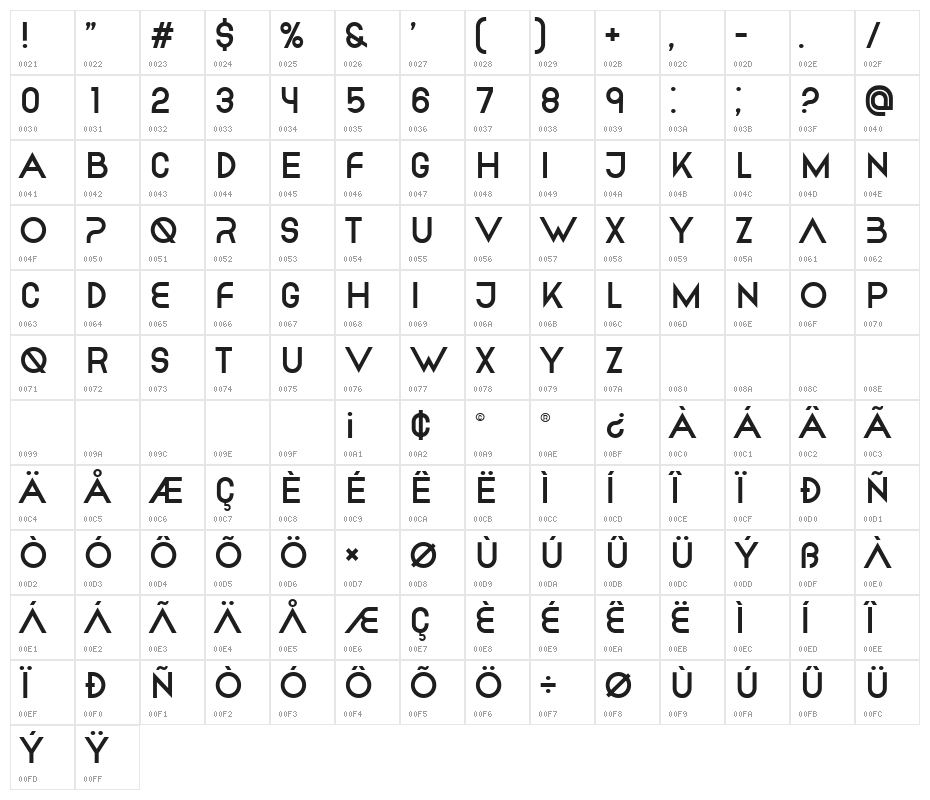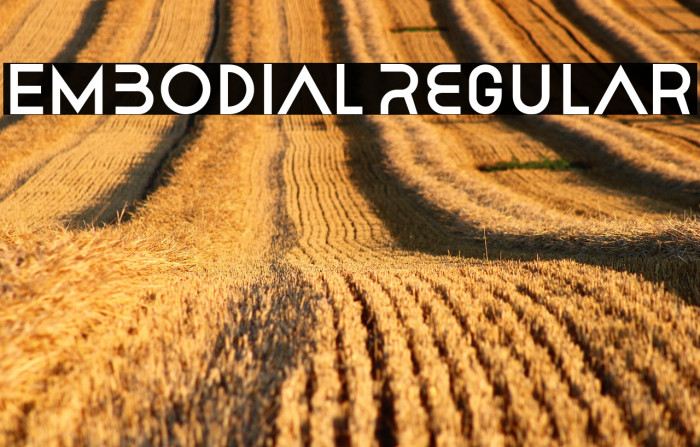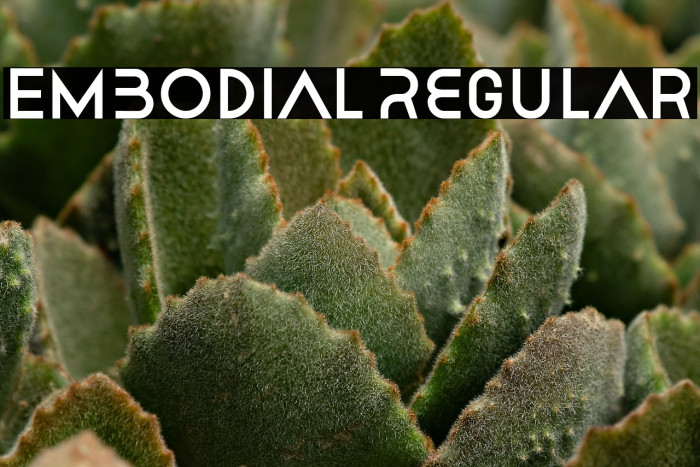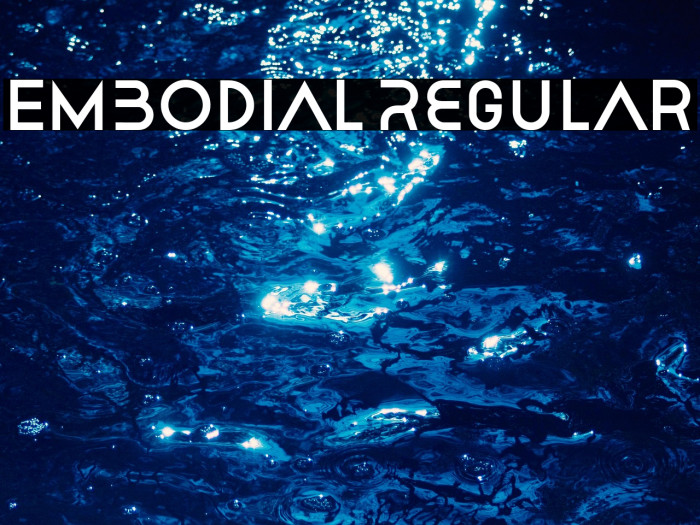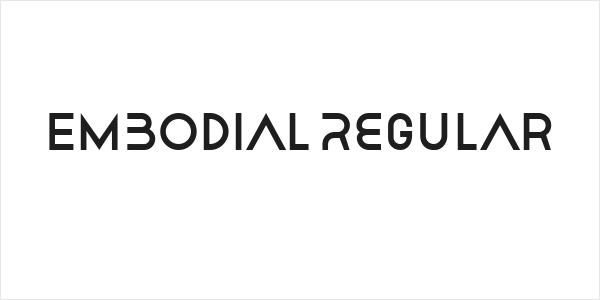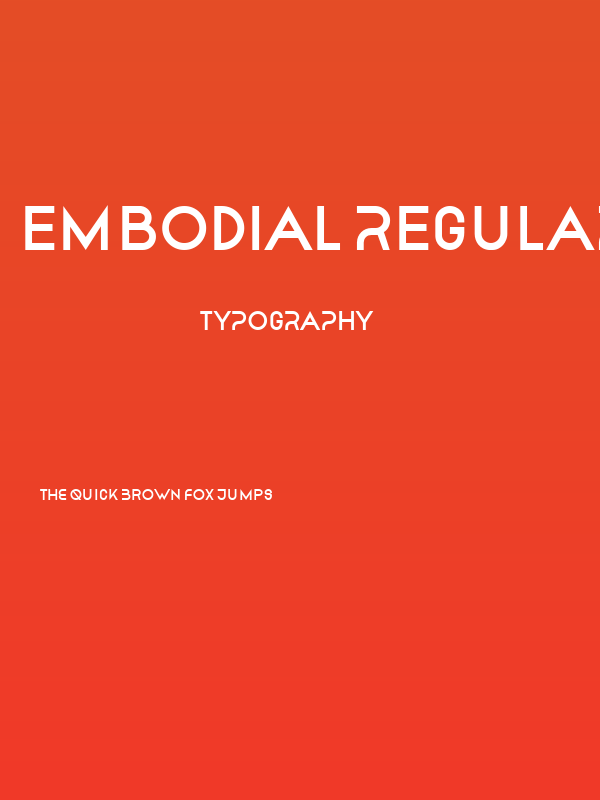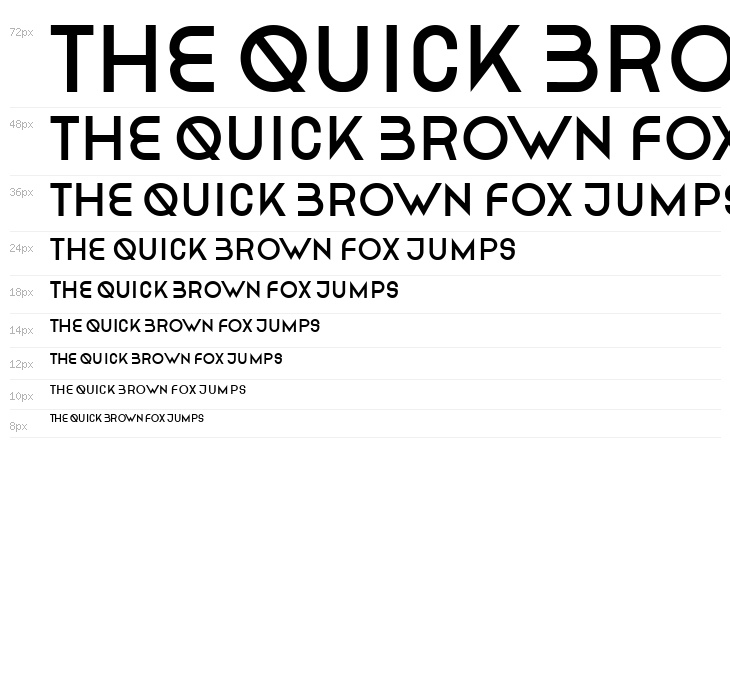
Embodial Regular Font
Embodial Regular Description
This font features a geometric and modern design with clean, sharp lines and a consistent stroke width. The uppercase letters are bold and angular, creating a strong visual impact. The lowercase letters maintain the same geometric style, ensuring uniformity across the typeface. The numerals are clear and easily distinguishable, adhering to the overall modern aesthetic. Special characters are designed with the same attention to detail, making them fit seamlessly with the rest of the font. This typeface is versatile and can be used in various design contexts.
| Use Case | Headlines, Logos, Branding |
| Proposed Projects | Ideal for branding, advertising, and editorial design projects that require a modern and impactful look. |